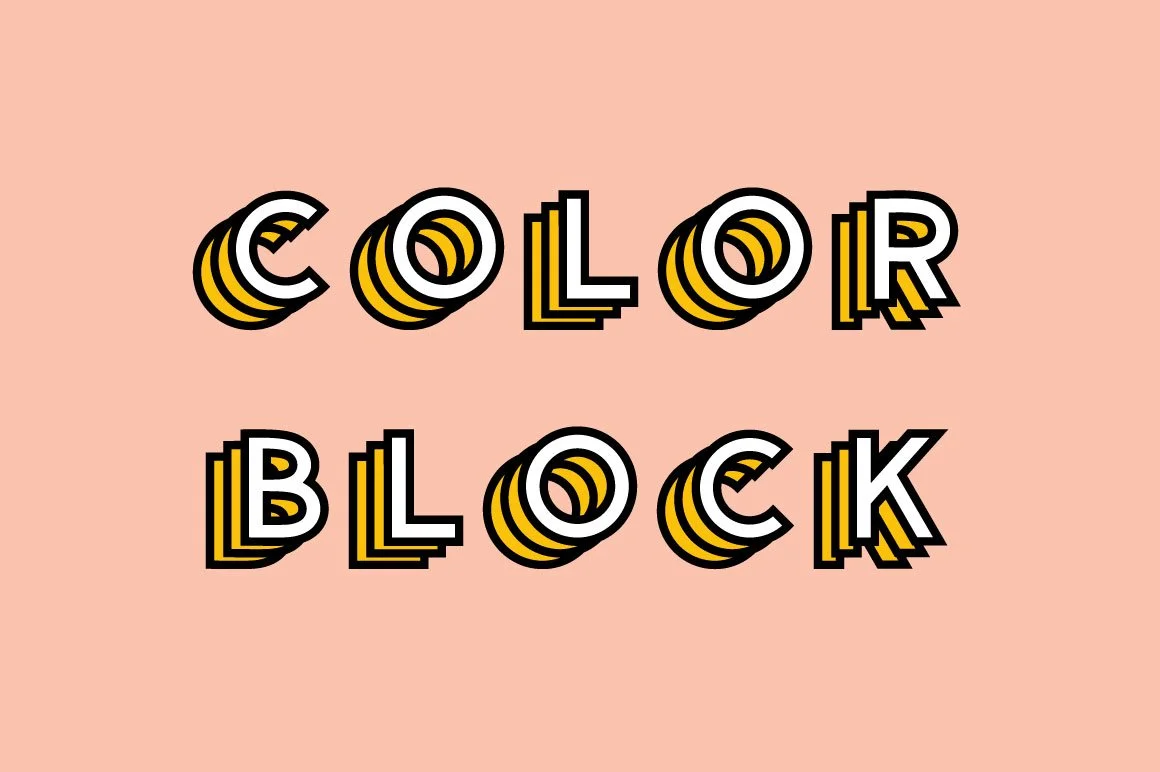
Color Block
Welcome to the world of colored fonts! Color Block is super fun, modern and most importantly colorful!! This jazzy display font is sure to give life to all sorts of projects!
Color Features
• BLUE
• PINK
• RED
• YELLOW
• GREEN
• OUTLINE